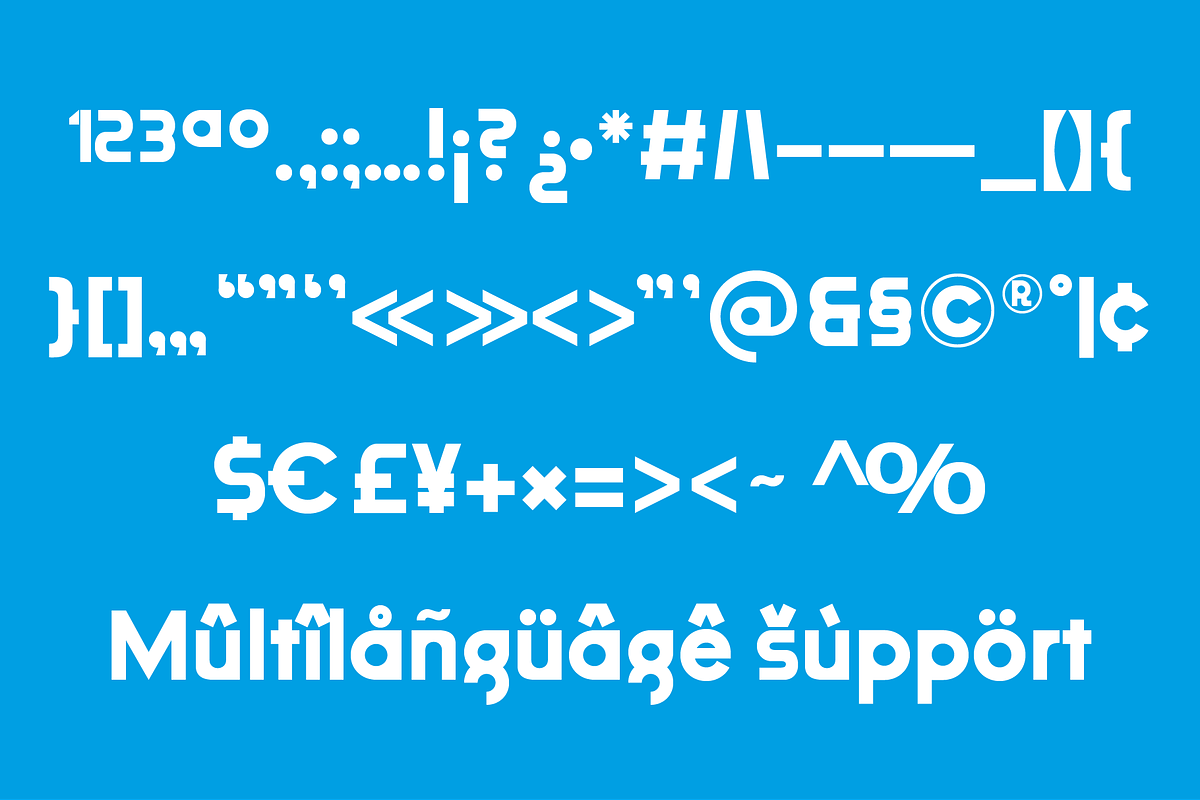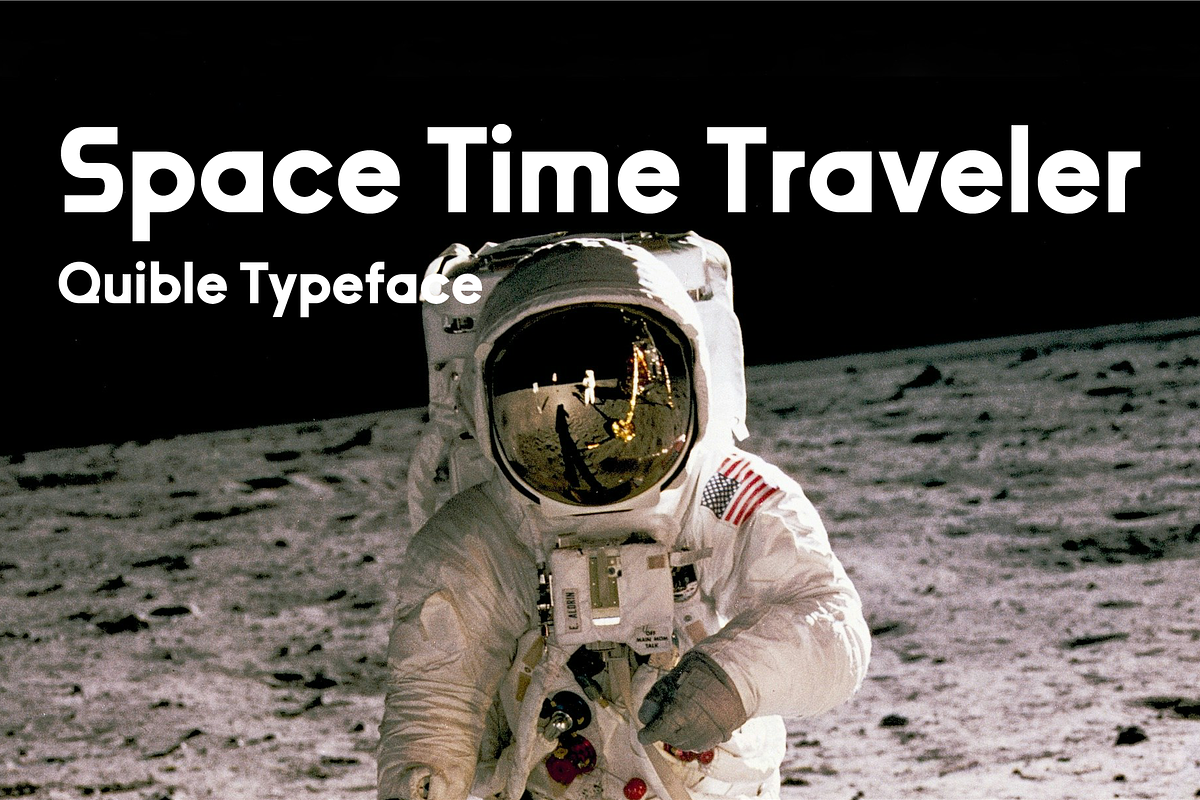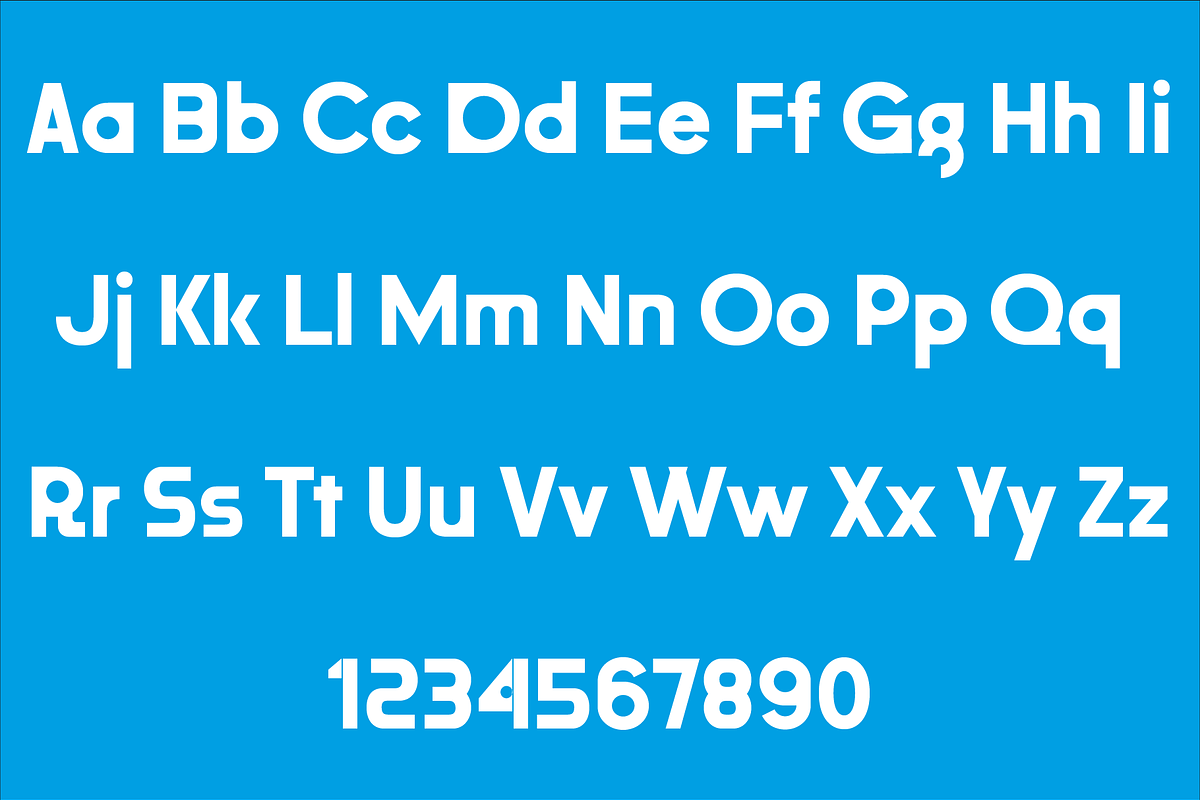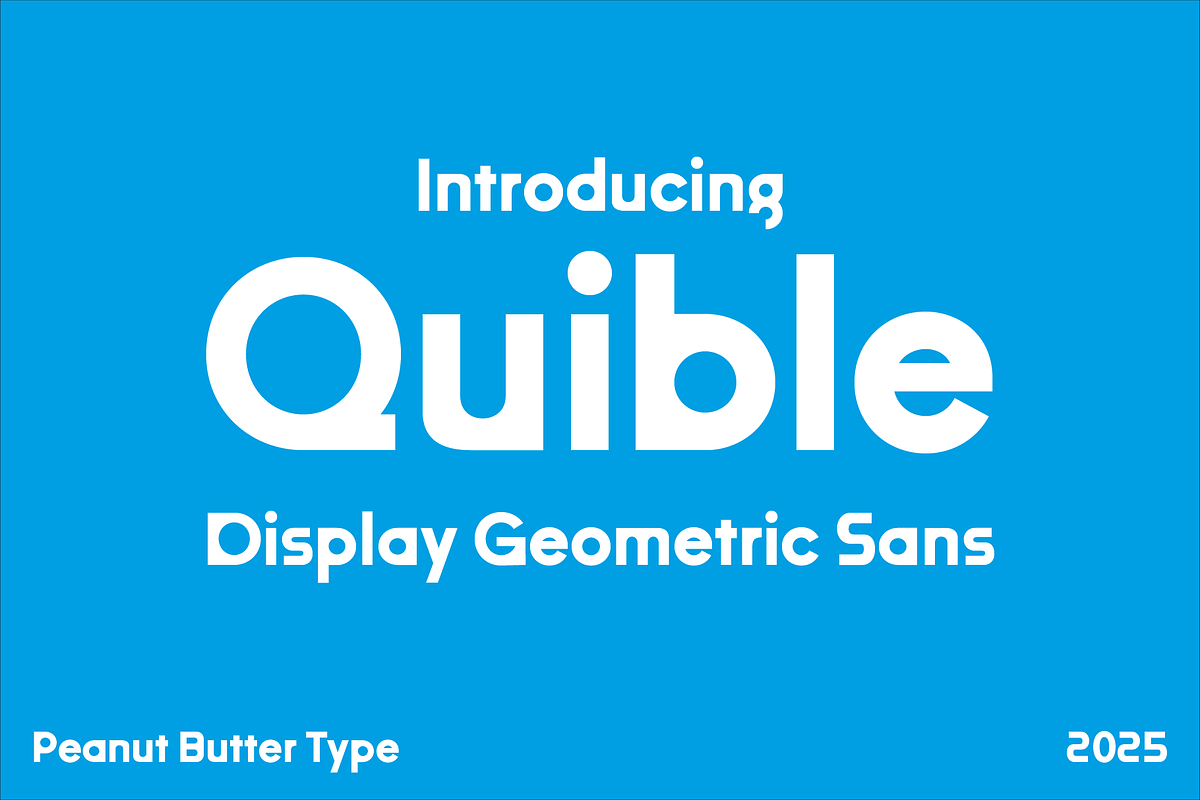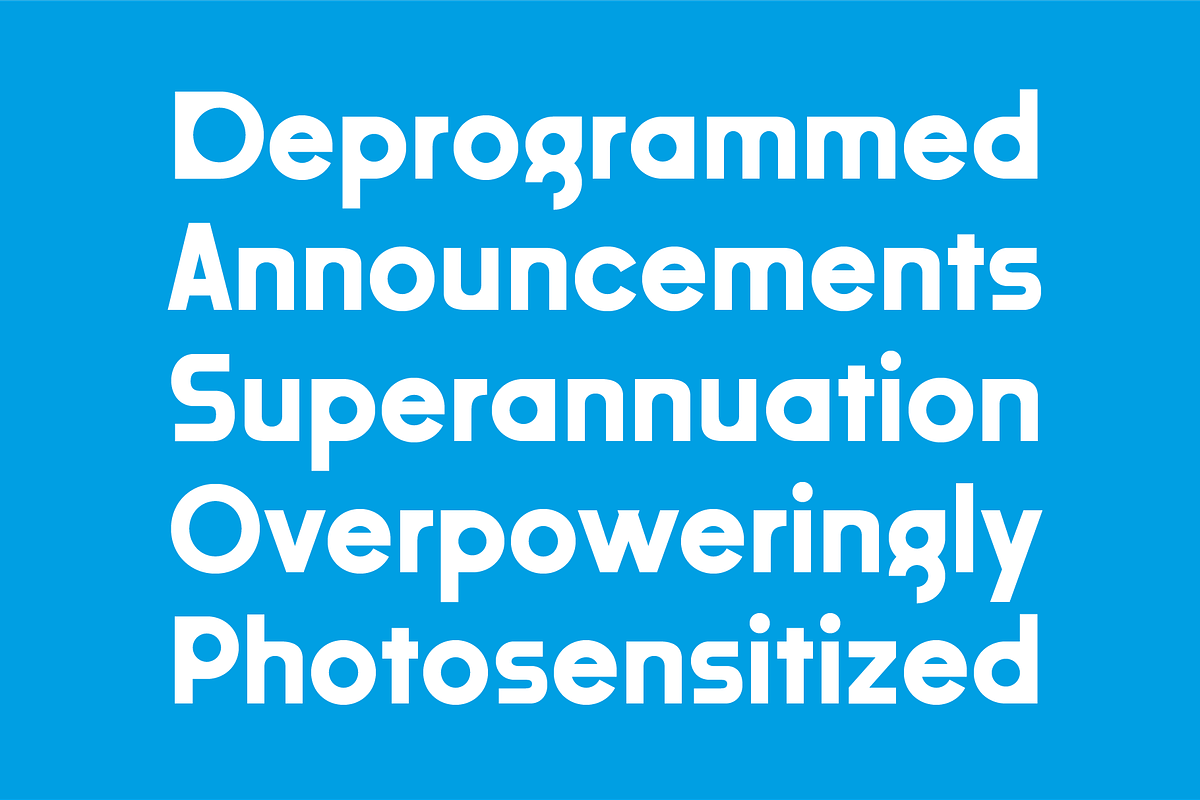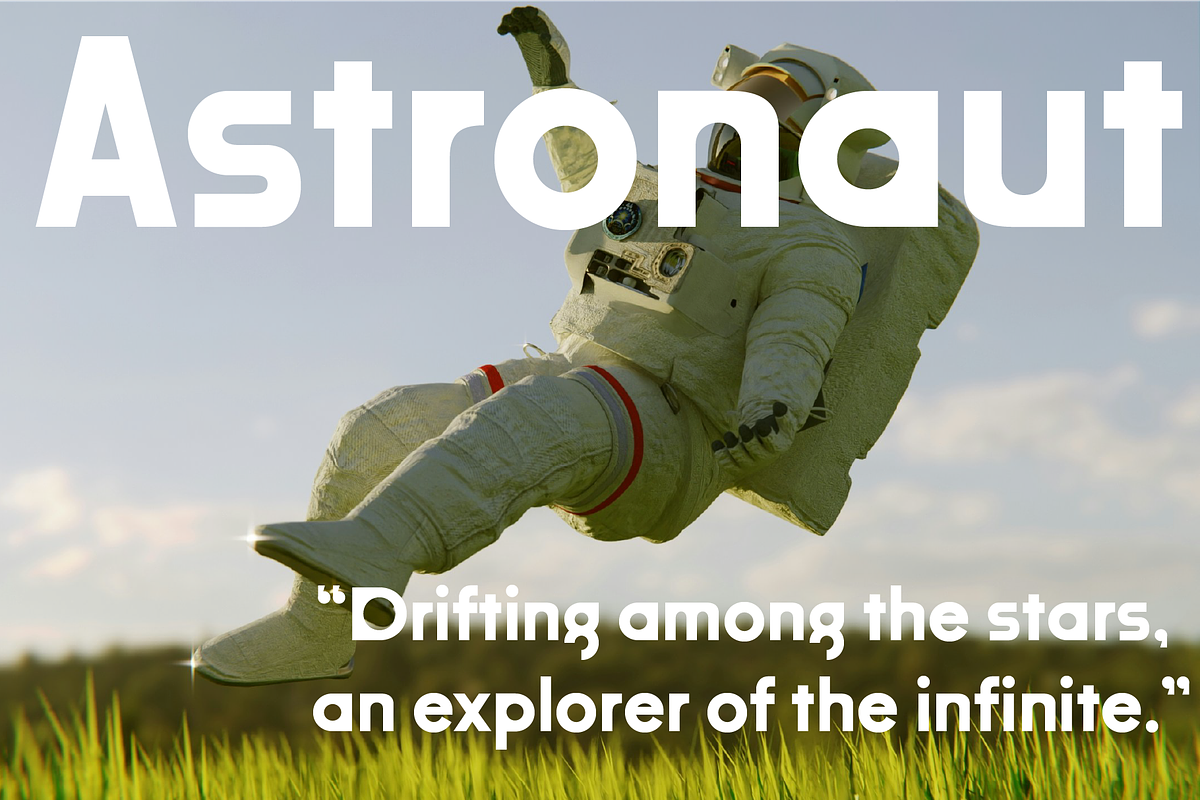
Quible DIsplay Geometric Sans
Quible is a geometric display sans serif typeface known for its clean, modern structure and striking visual presence. Its letterforms balance sharp precision with smooth, rounded curves, giving it a contemporary feel that works well in bold headings, branding, and expressive layouts. Designed to stand out without overwhelming the page, Quible combines minimalism with personality, making it a versatile choice for designers who want to convey clarity, style, and a touch of playfulness. Whether used in digital interfaces or large-scale print applications, it brings a polished, modern character to any project.